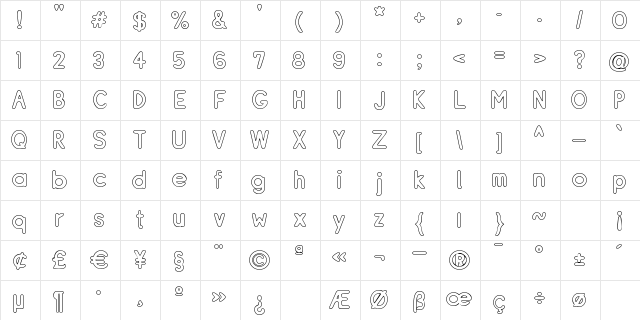
ReSiple BoldOutline Free Font
ReSiple BoldOutline
Style: BoldOutline
Design Context for ReSiple
ReSiple is built around its visual character rather than neutral utility - its distinctive forms are designed to make an impression at display sizes. Its bold stroke weight gives it real presence on the page.
Font Pairing: Pair with a clean neutral sans-serif for body copy to let ReSiple's character lead without overwhelming the composition.
Pro Tip: Use ReSiple exclusively at display sizes - it was designed to be seen, not read at length. Let a neutral companion handle body copy.